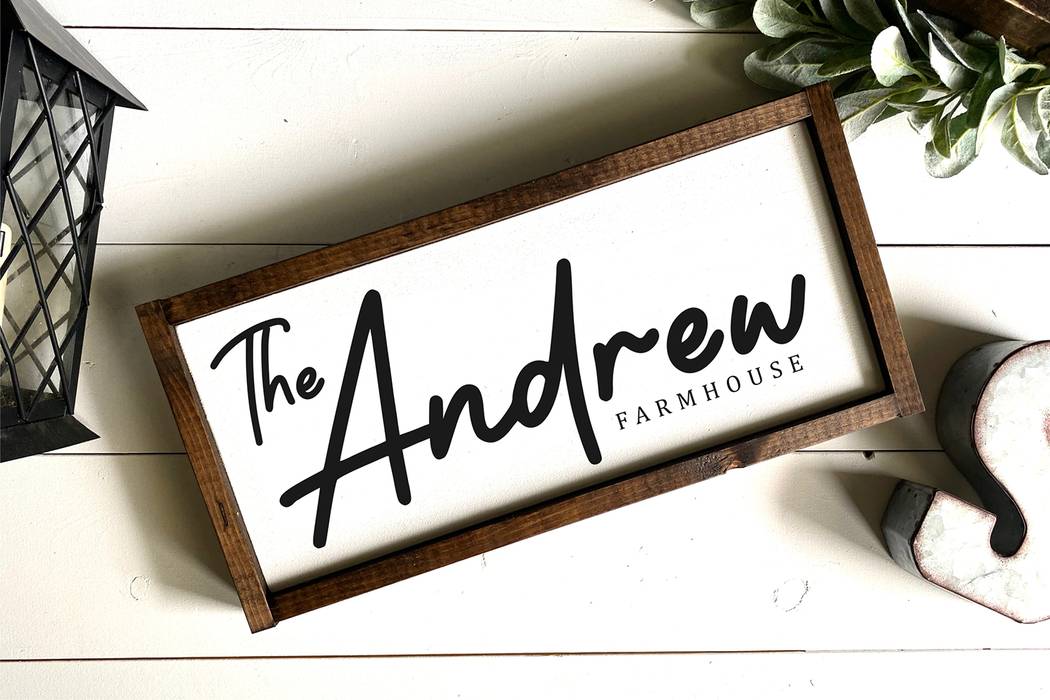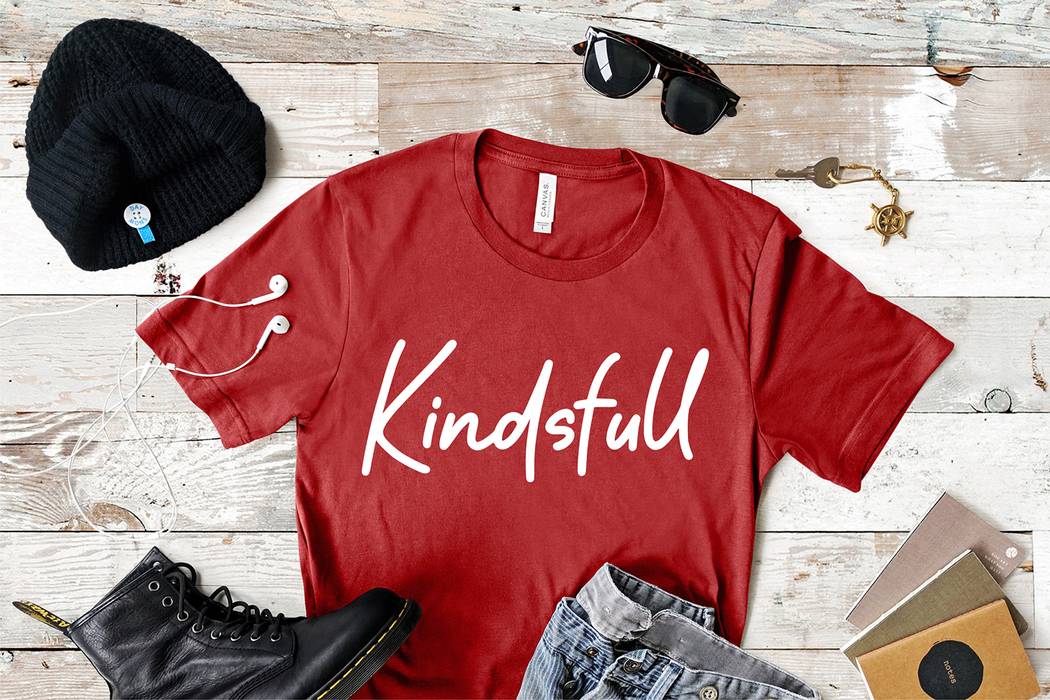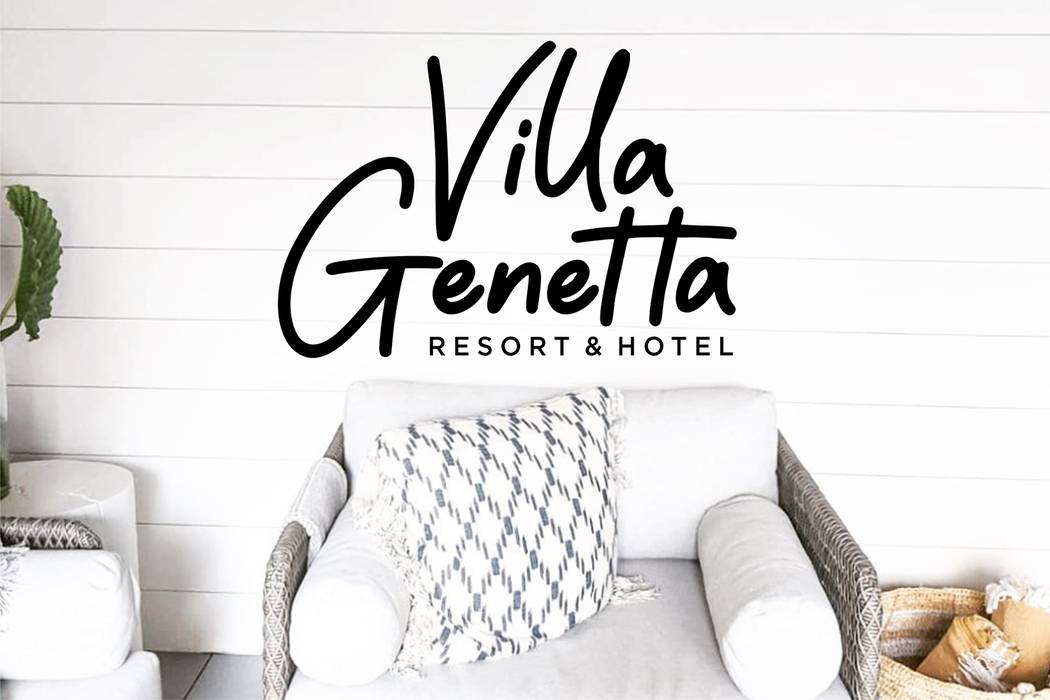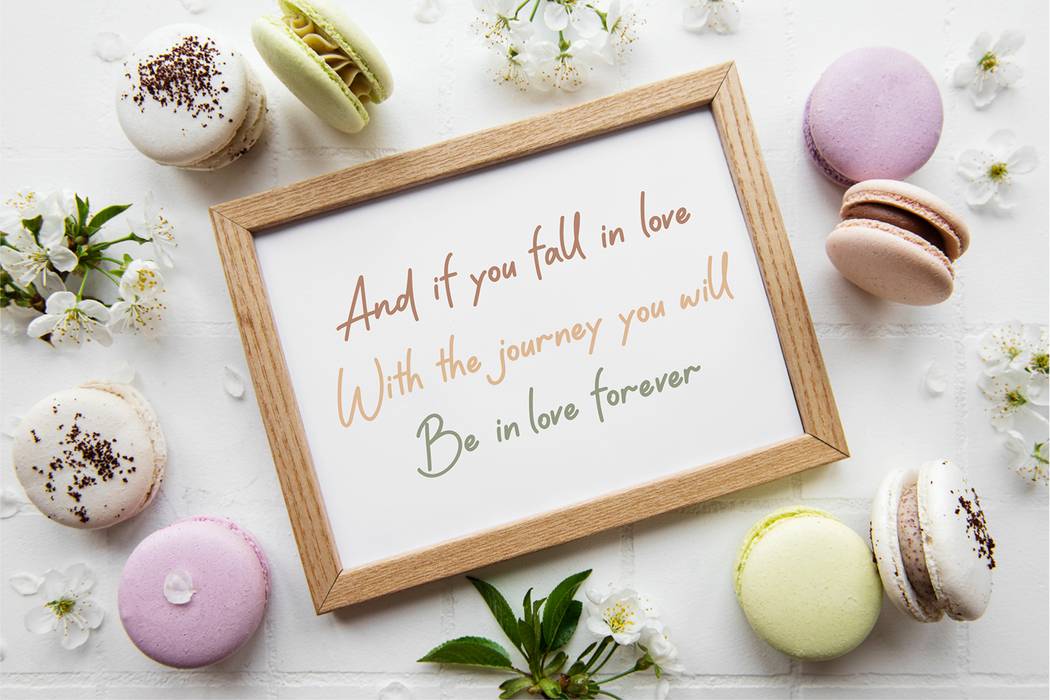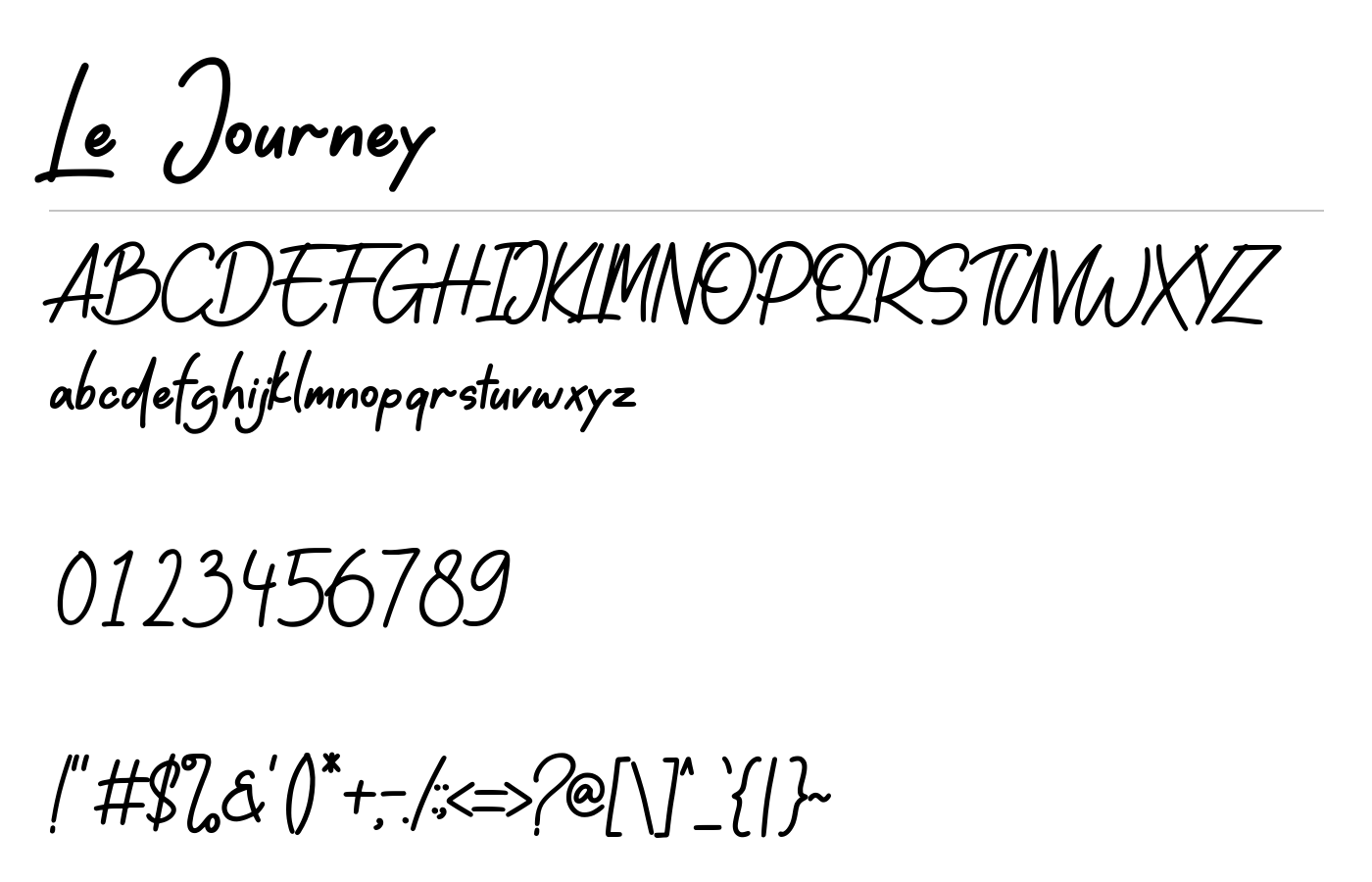
Le Journey is a lively and casual script font with a handwritten feel, featuring slender, slightly slanted strokes and a charming, informal style. Its narrow letterforms and medium x-height give it a friendly and approachable personality, making it ideal for personal branding, creative projects, and playful editorial designs. This font works well in logos, invitations, and websites where a warm, human touch is desired.
Le Journey Font
About Le Journey Font